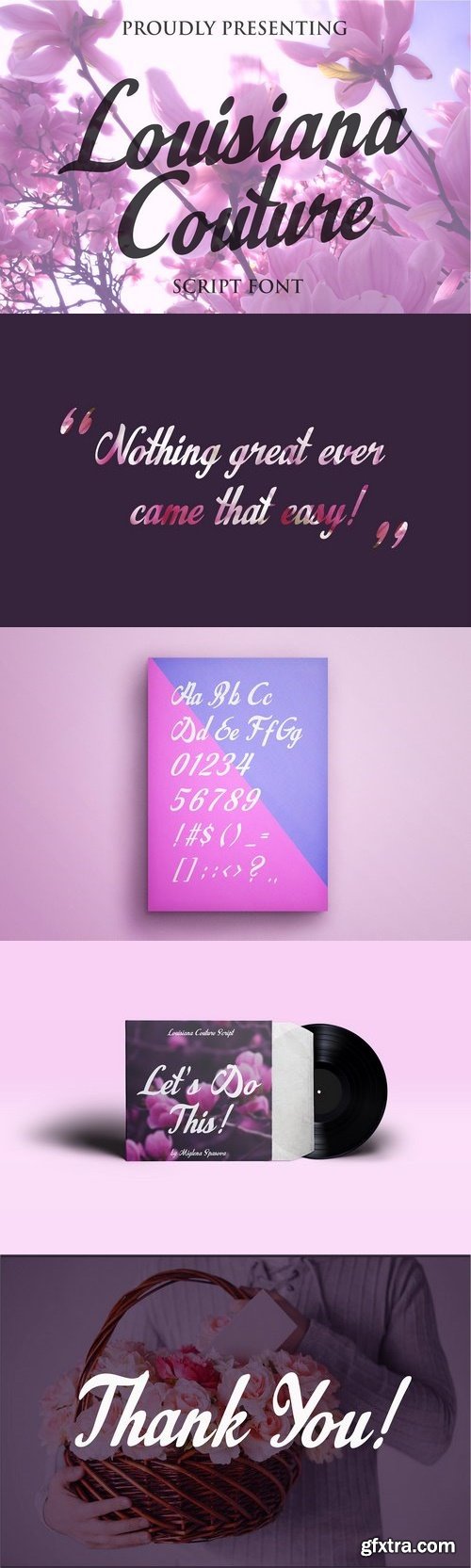
Introducing, Louisiana Couture Script. A great handmade script font with harmonic and elegant vibe ideal for any logotype / wordmark, posters, badges , headlines, apparel, cards & invitations, etc. I had great fun creating the font, it was inspired by lots of things like spring, fashion, New Orleans (hence the name), traditions, music and many more. I hope you find use for this font, since I sincerely was hoping to make something flashy yet applicable in everyday projects.